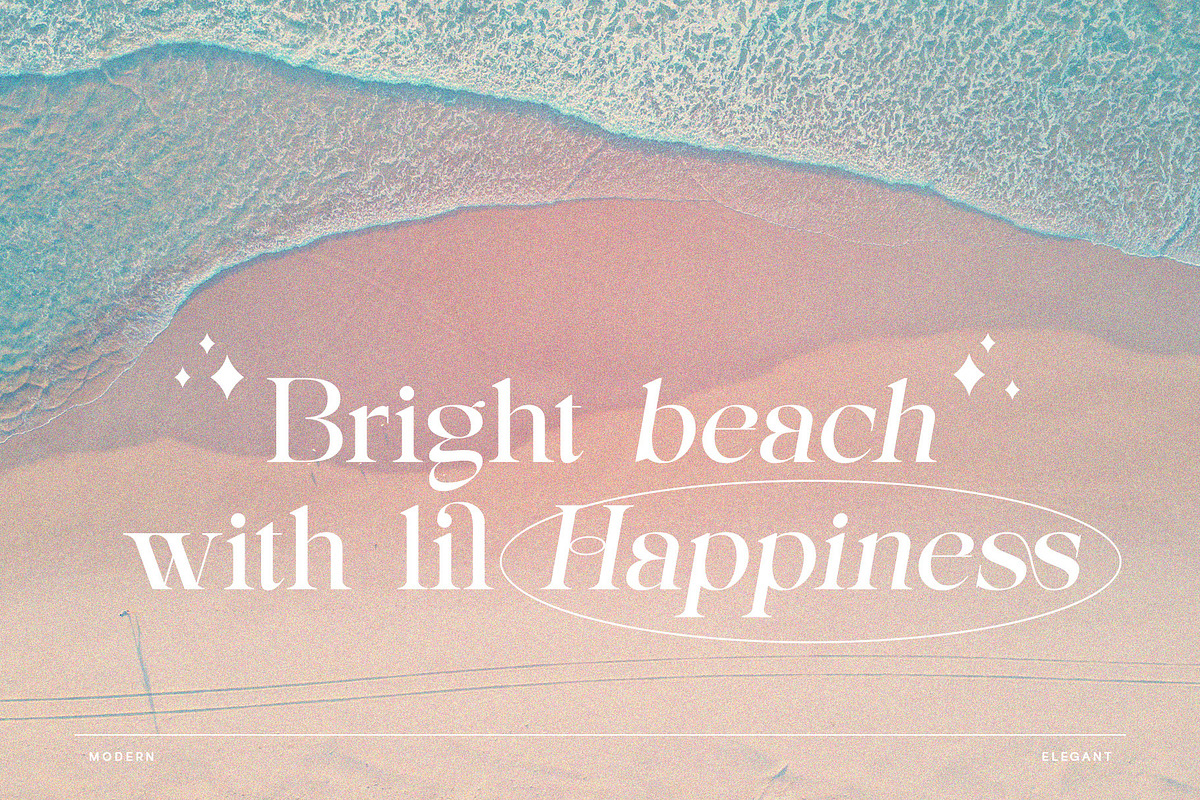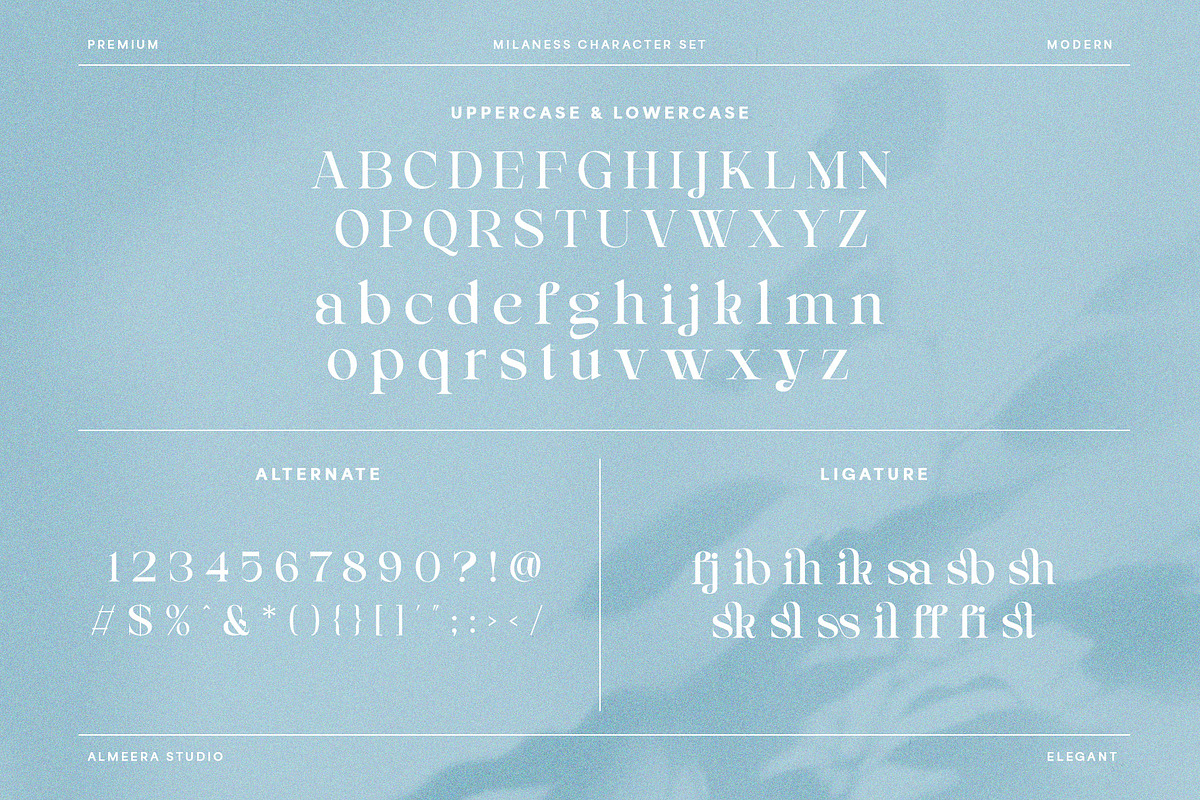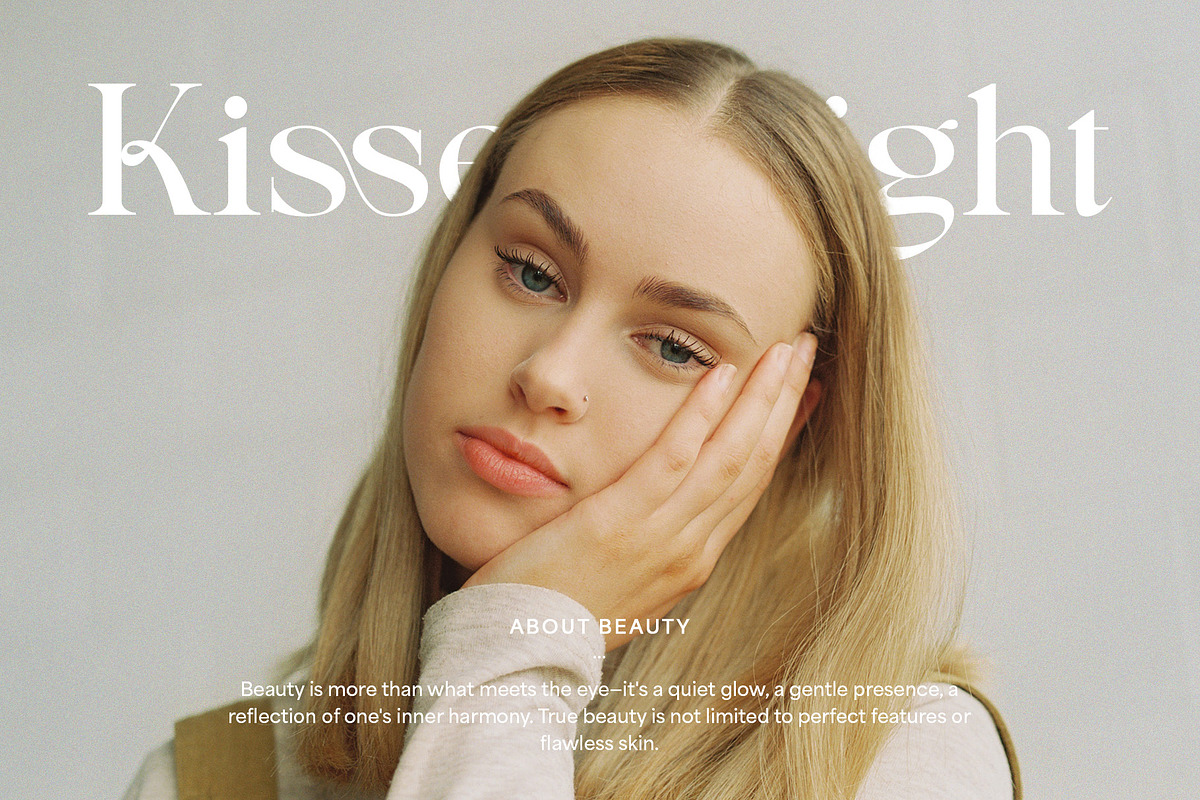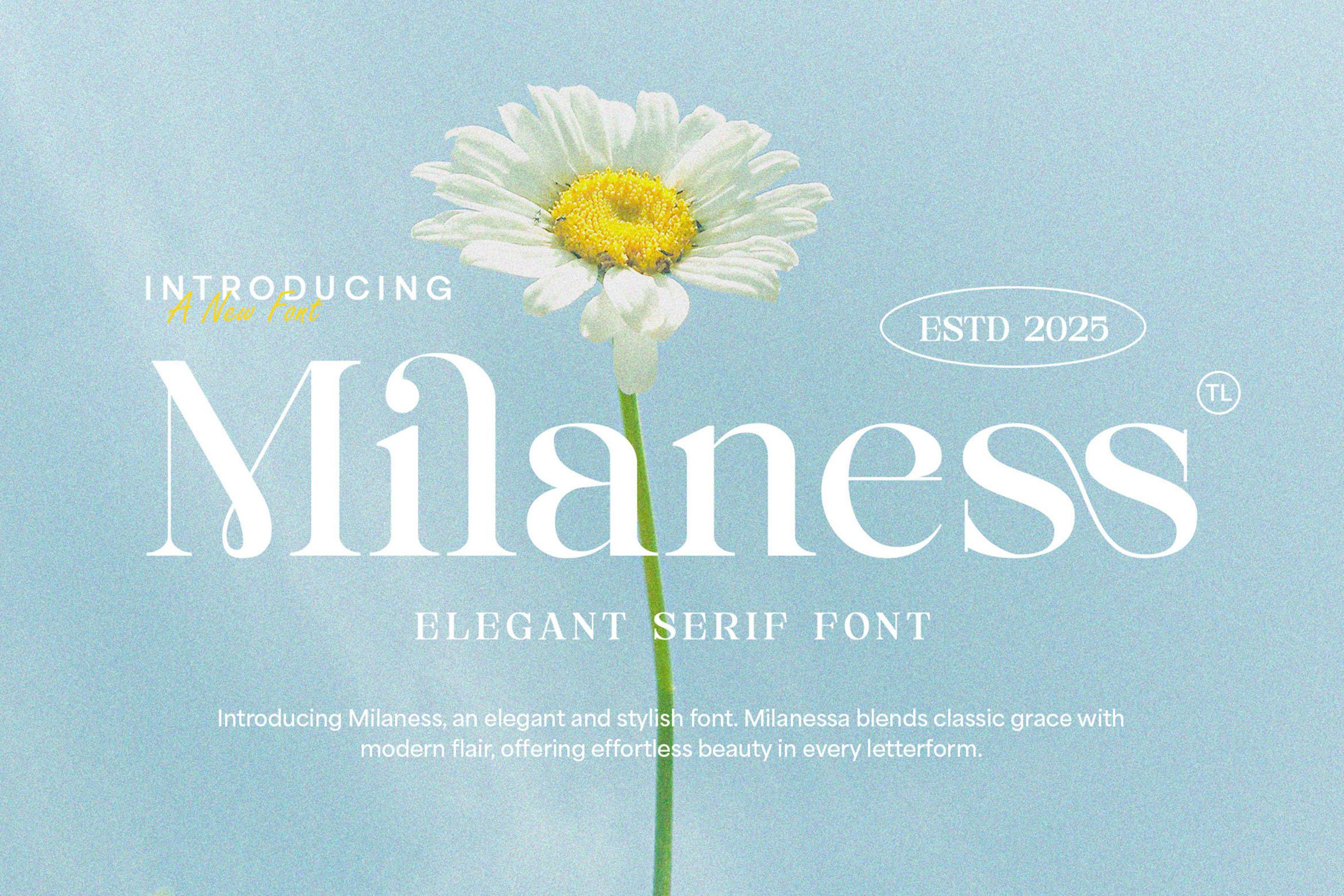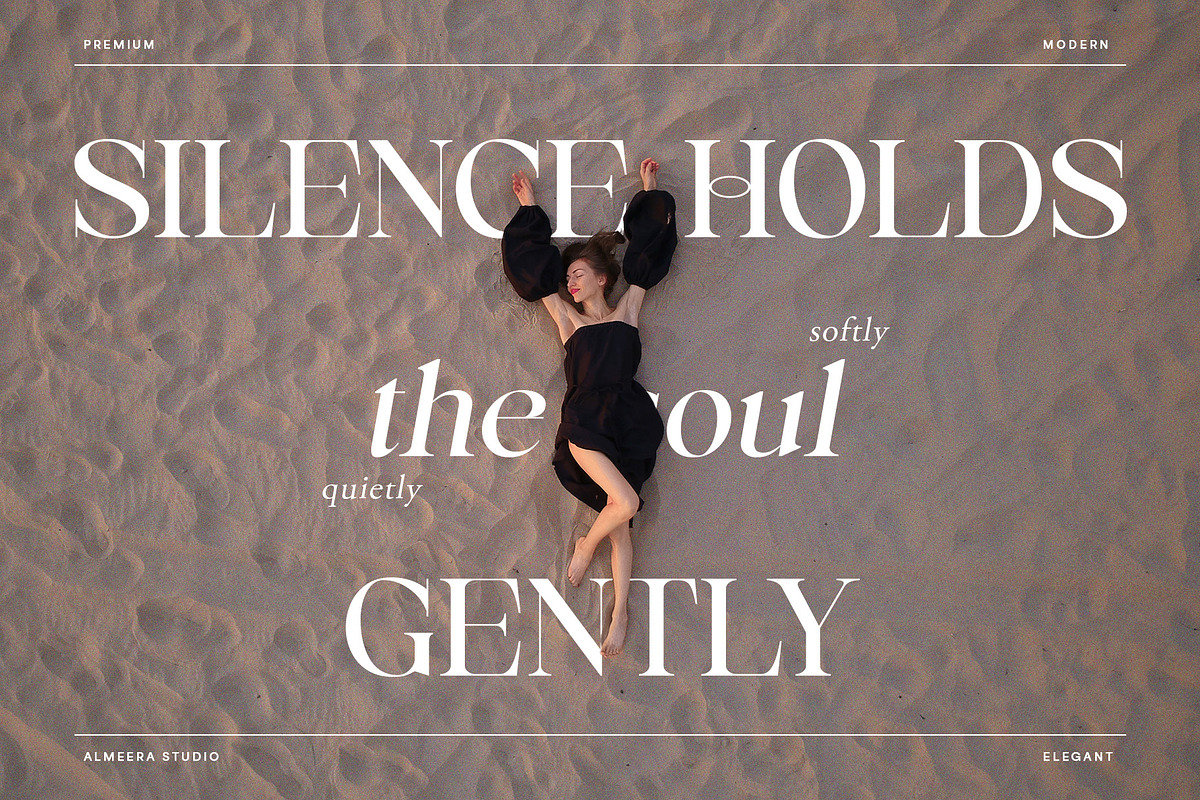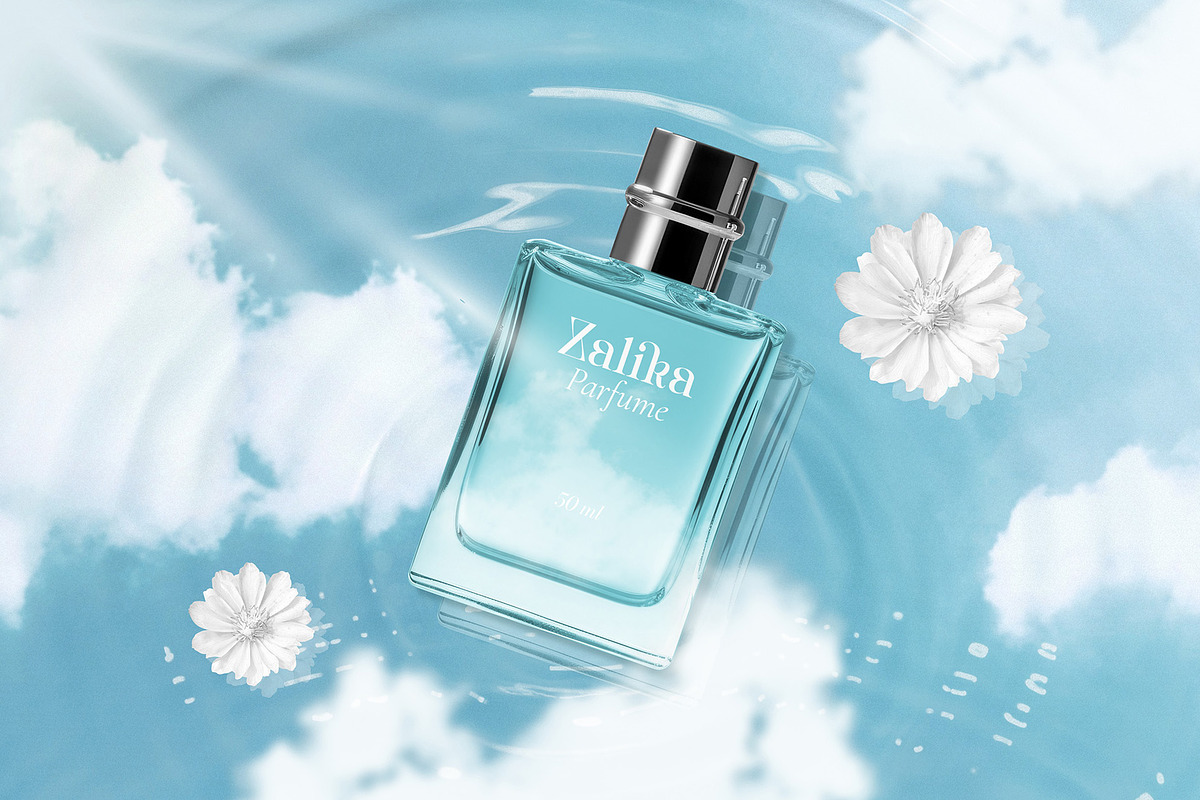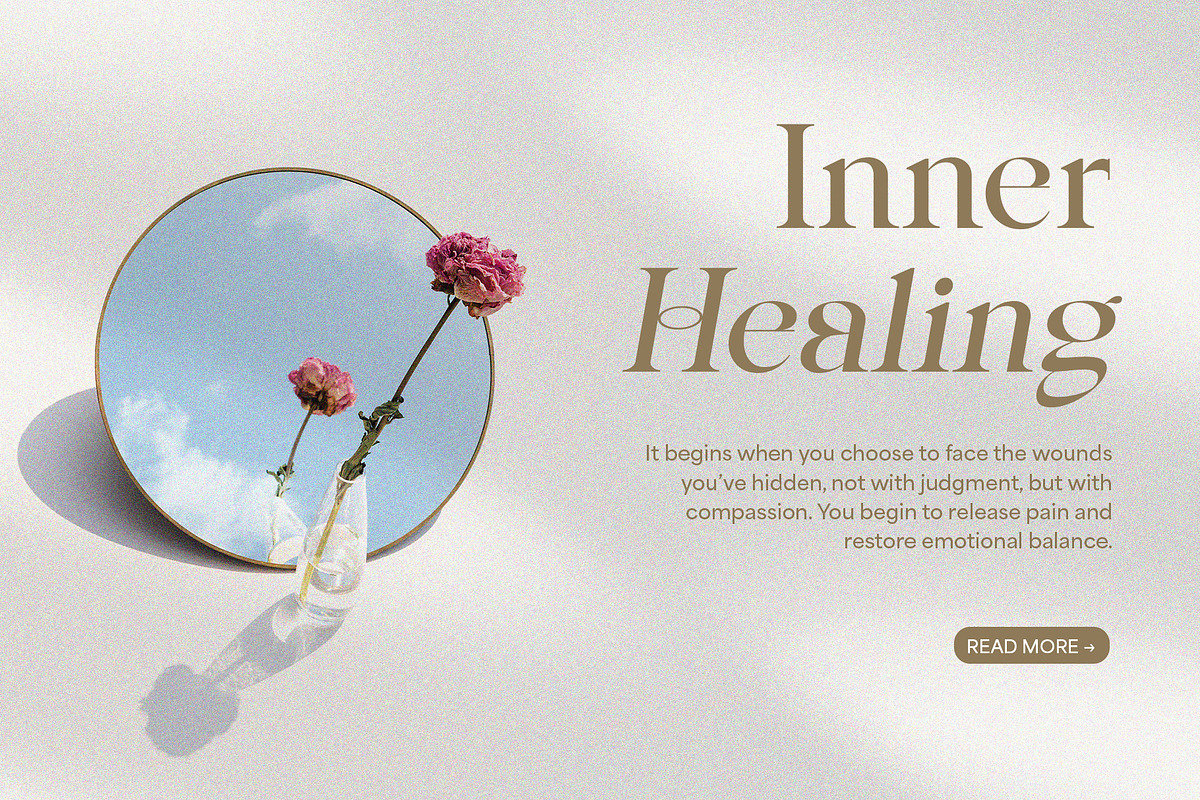
Milaness - Elegant Serif Font
Discover TL Milaness, a captivating elegant serif font that effortlessly marries classic grace with modern flair. Perfect for branding, editorial layouts, wedding invitations, and luxury packaging, Milaness brings an unparalleled sophistication to every project. Its beautifully crafted letterforms boast stylish ligatures and a distinctive flow, ensuring effortless beauty and exceptional readability. Whether you're creating a chic logo or a refined publication, Milaness is designed to make your work stand out. Elevate your typography with this versatile display font, ideal for designers seeking a unique blend of classic appeal and contemporary elegance. Get Milaness today and infuse your designs with a touch of timeless charm. FEATURES:
- Numerial